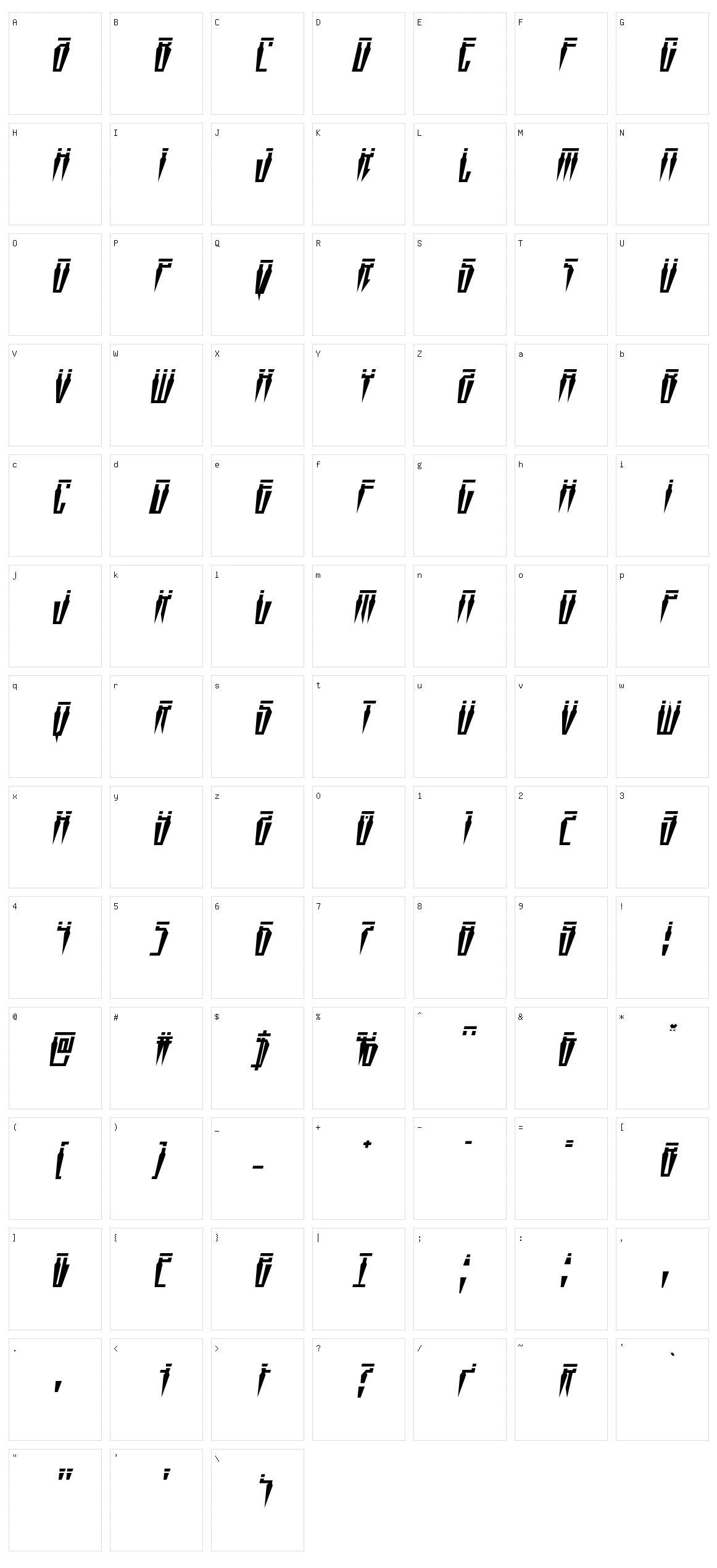
Swordtooth
This font comes with the following 26 versions: Regular, Italic, Semi-Italic, Condensed, Condensed Italic, Expanded, Expanded Italic, Squat, Squat Italic, 3D, 3D Italic, Halftone, Halftone Italic, Laser, Laser Italic, Gradient, Gradient Italic, Warped, Warped Italic, Rotated, Rotated 2, Rotalic, Title, Title Italic, Super-Italic and Leftalic.